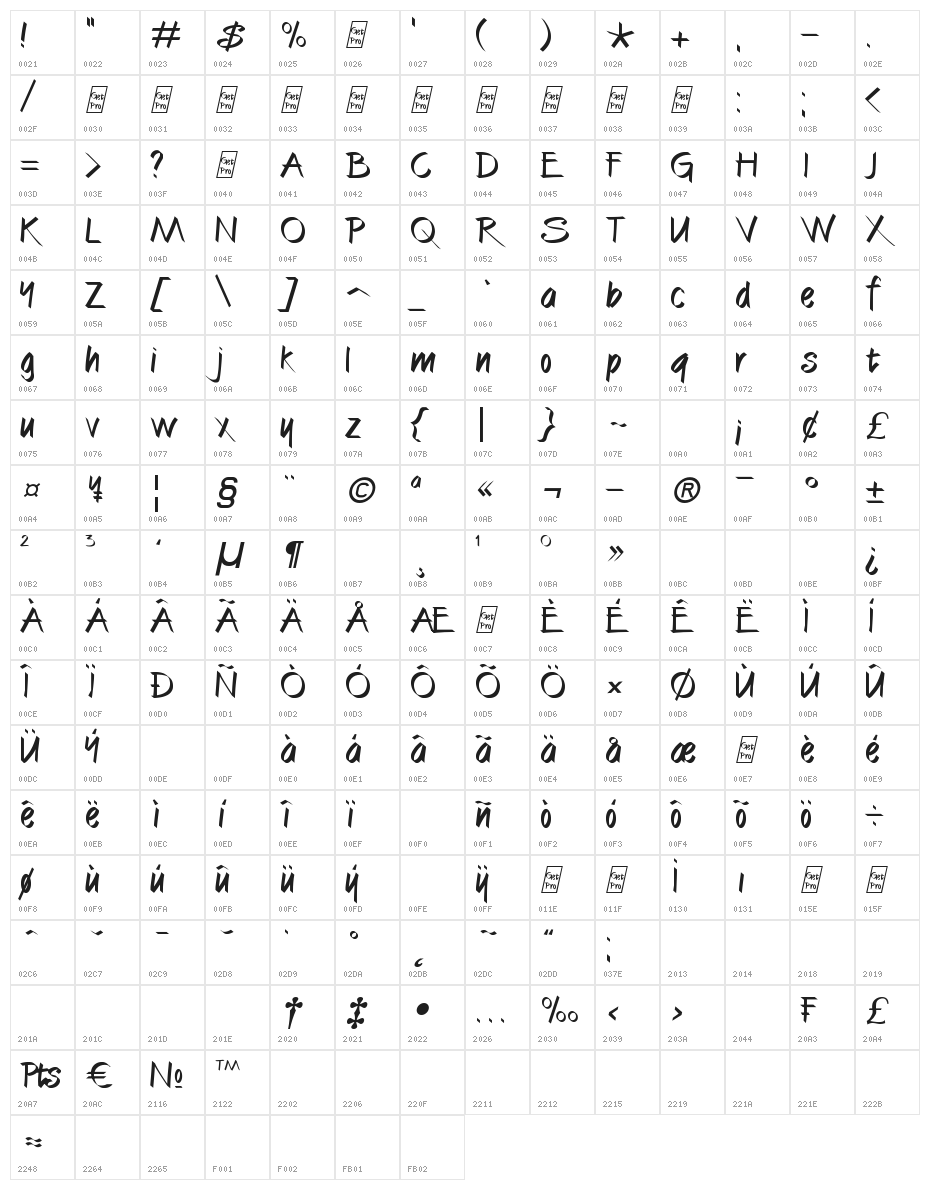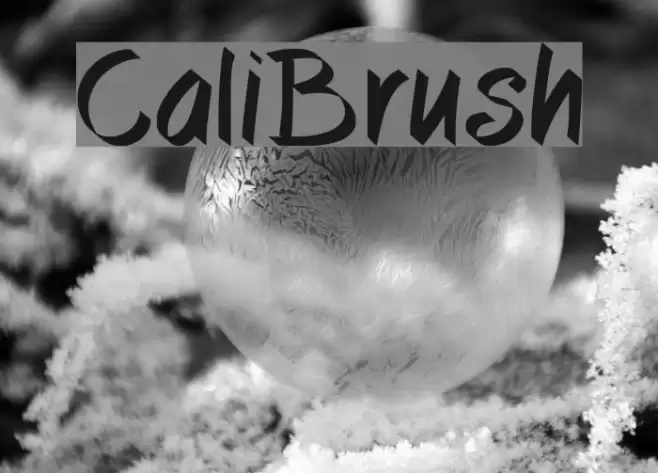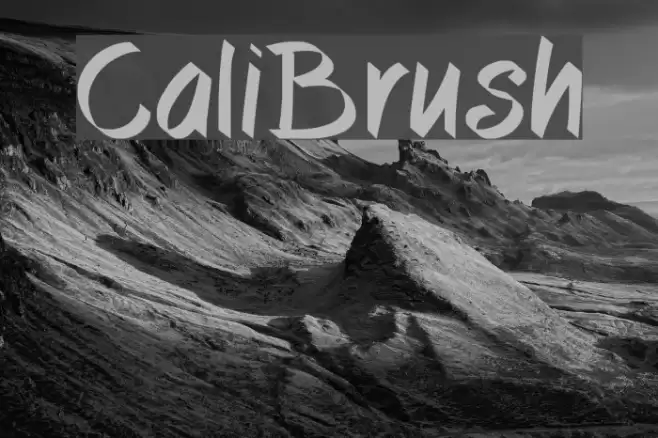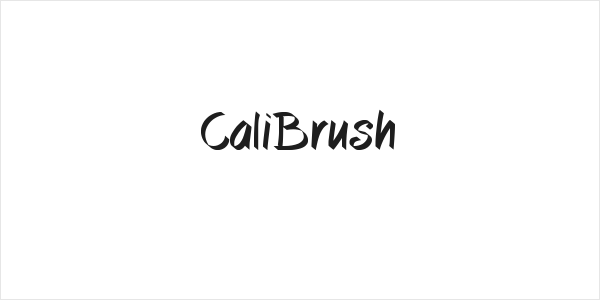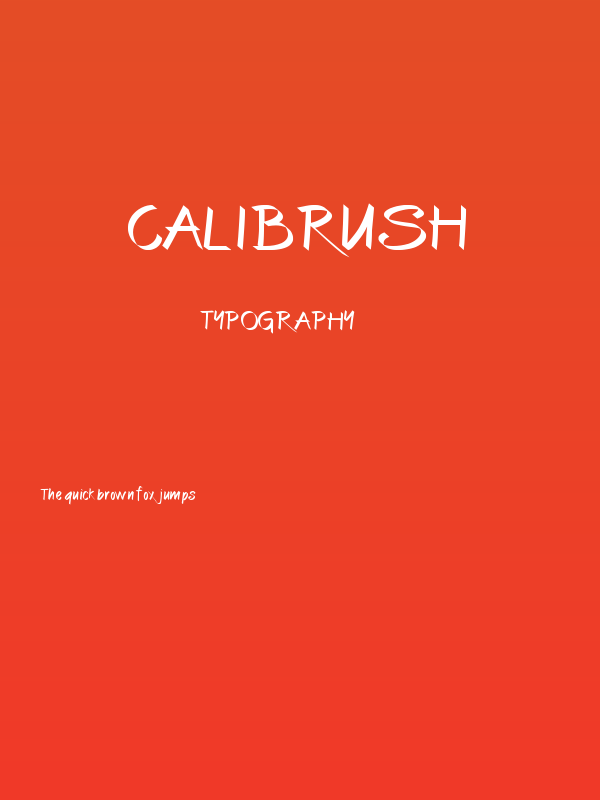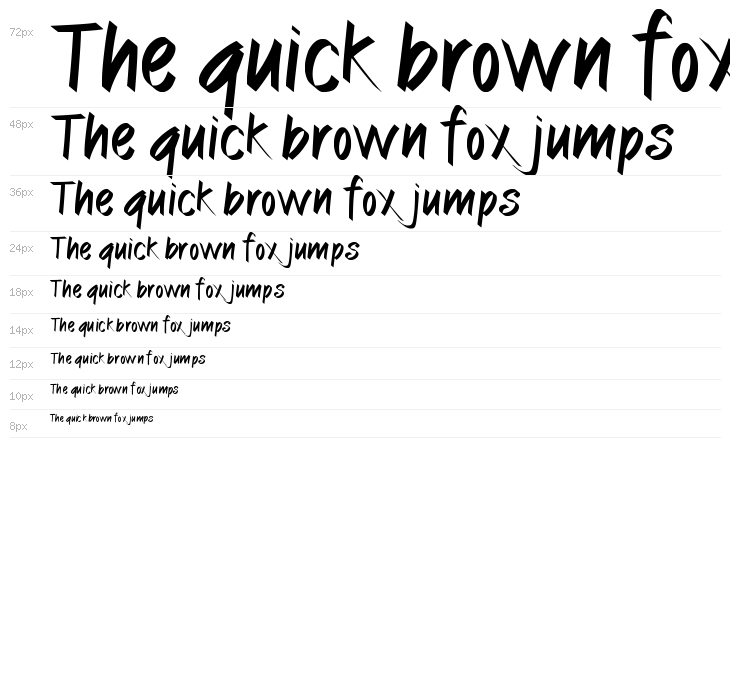
CaliBrush Font
CaliBrush Description
This font exhibits a dynamic and energetic style, characterized by its brush-like strokes that convey a sense of movement and fluidity. The uppercase letters are bold and angular, with sharp edges and varying stroke widths that add a dramatic flair. The lowercase letters maintain a consistent flow, with smooth curves and a slightly slanted orientation, enhancing the handwritten appearance. The numerals and special characters follow the same aesthetic, ensuring a cohesive look across all elements. This font's unique style makes it suitable for projects that require a touch of creativity and expressiveness.